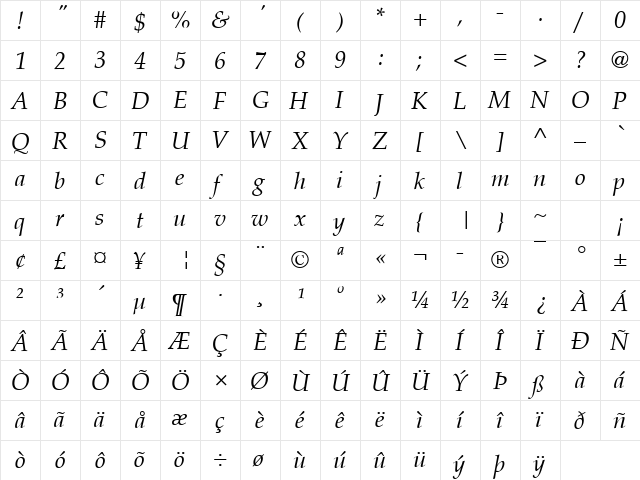
Palladio Becker Italic
Design Context for Palladio Becker Typeface
Palladio Becker takes a measured approach to typography — its balanced proportions and neutral character make it a reliable workhorse for both digital and print work. The dynamic lean of this cut emphasises speed and emphasis in any layout.
Pro Tip: Try Palladio Becker for annotation and caption copy alongside an upright companion — the contrast in angle creates a dynamic but ordered typographic system.